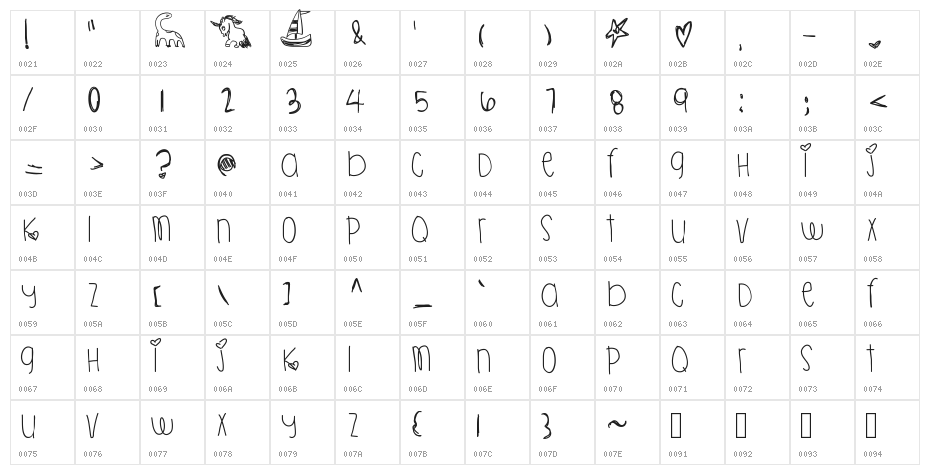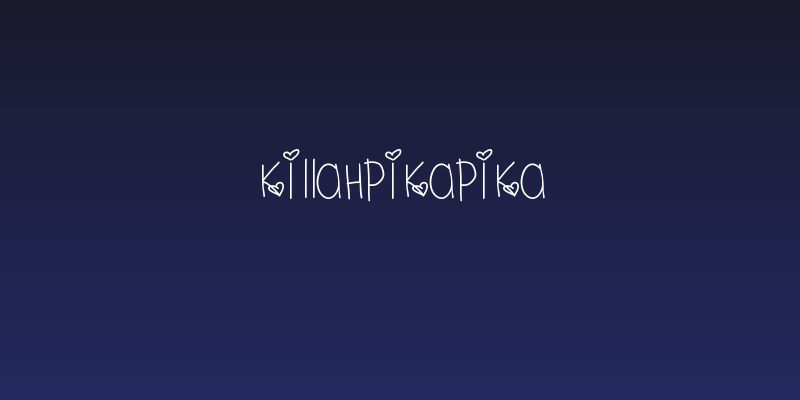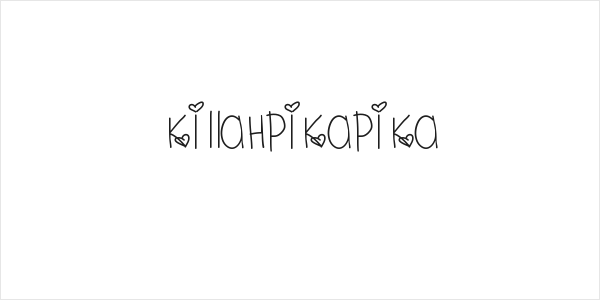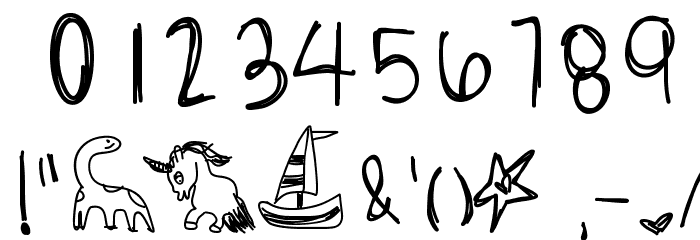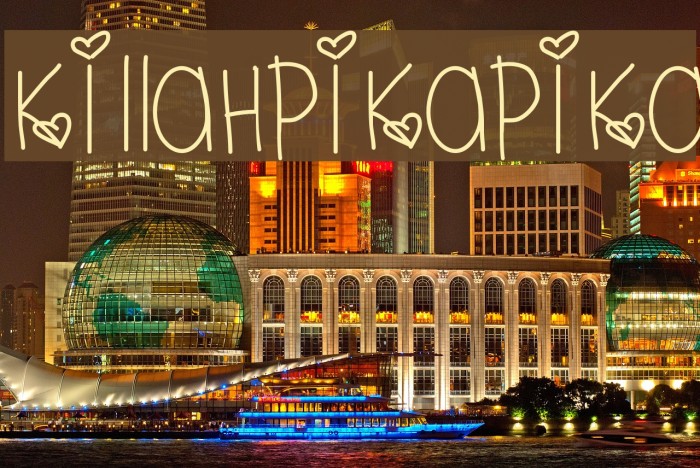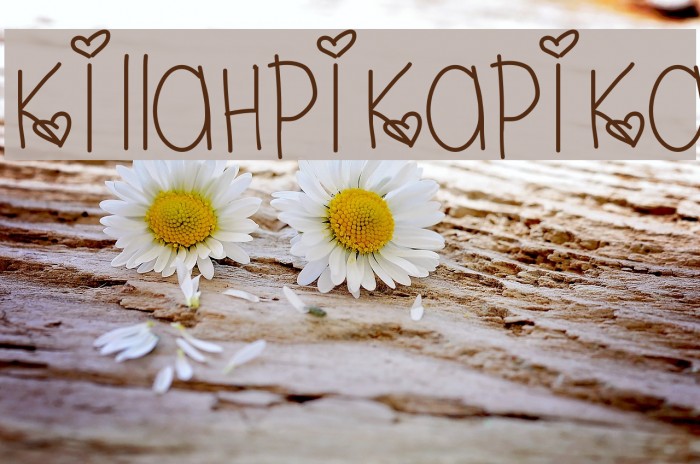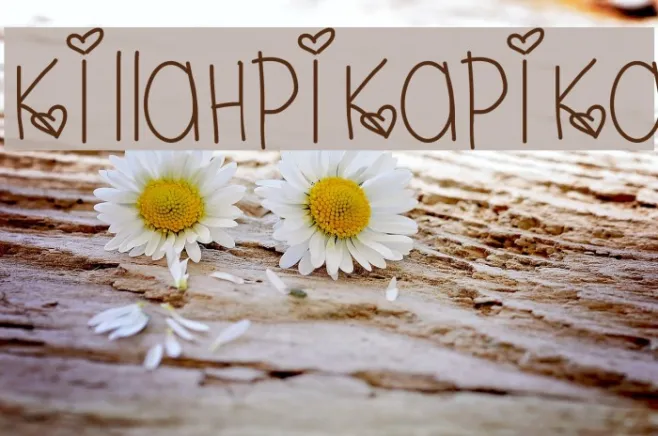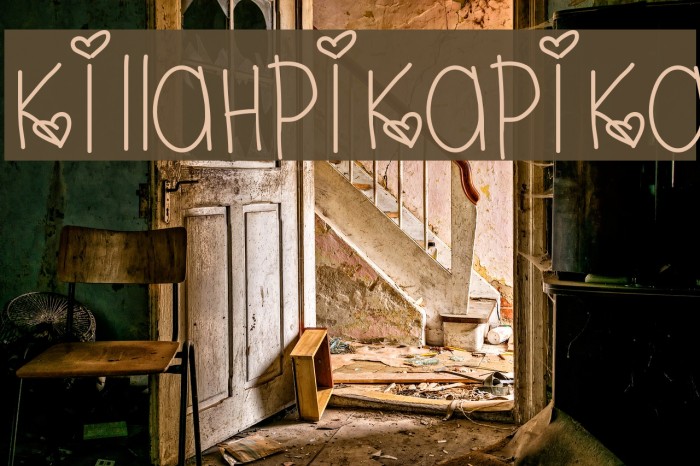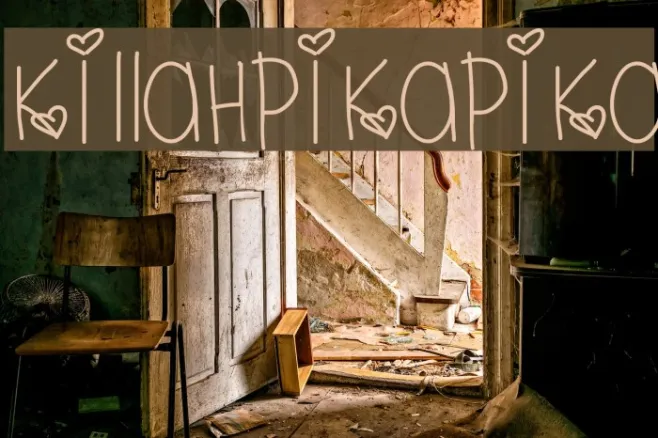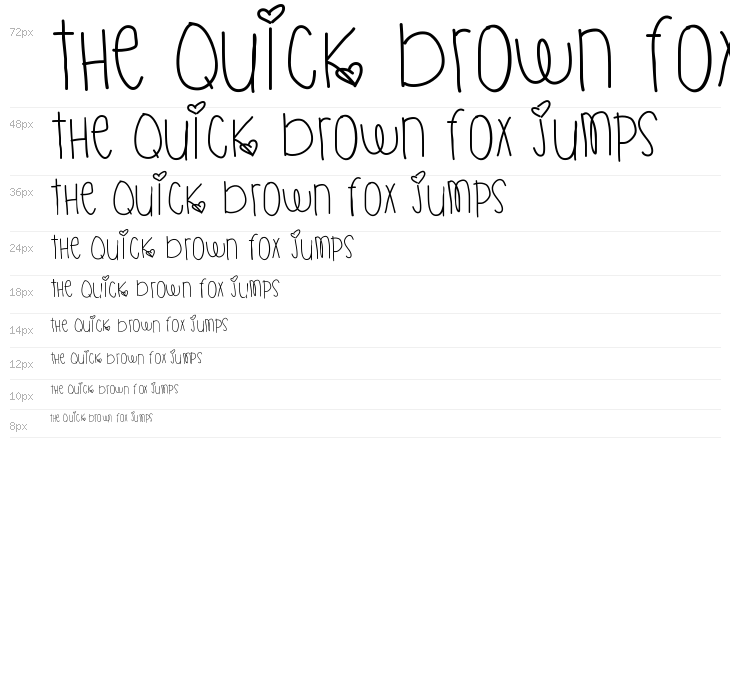
KillahPikaPika Font
KillahPikaPika Description
This playful and whimsical font features a handwritten style with a casual and friendly appearance. The letters are tall and slender, with a slight tilt that adds to the informal charm. Some characters, like the 'i' and 'j', are adorned with heart-shaped dots, enhancing the playful aesthetic. The numbers maintain the same quirky style, ensuring consistency throughout. Special characters include fun illustrations like a dinosaur, unicorn, and sailboat, making this font ideal for creative and child-friendly projects. The overall design is light-hearted and imaginative, perfect for adding a touch of fun to any text.